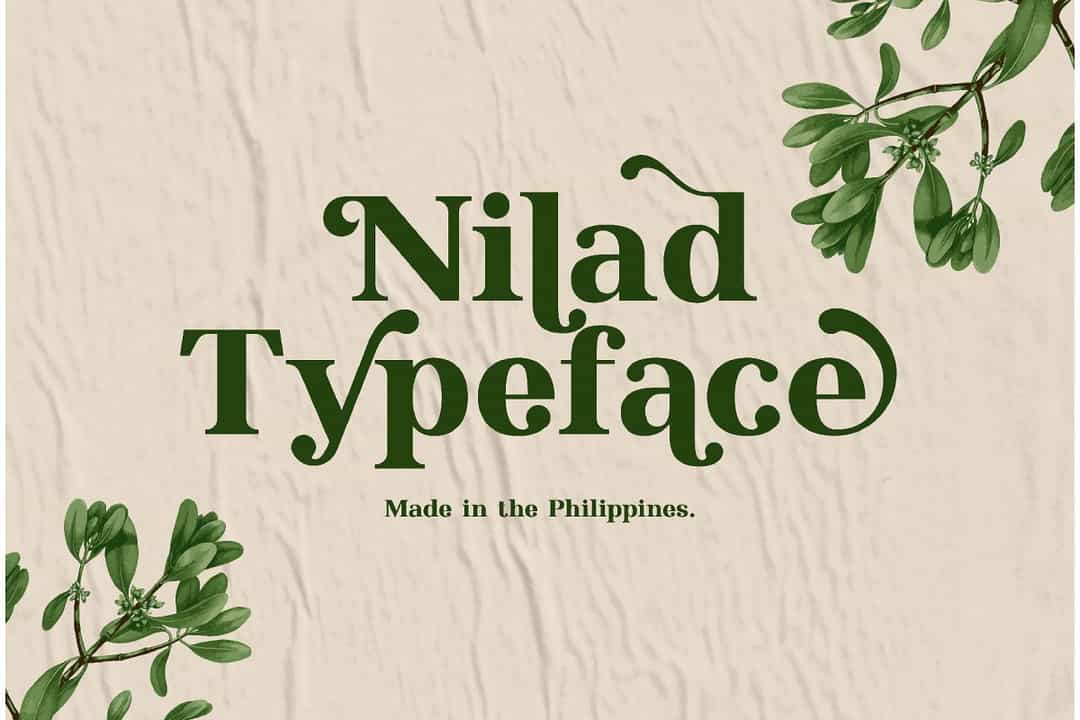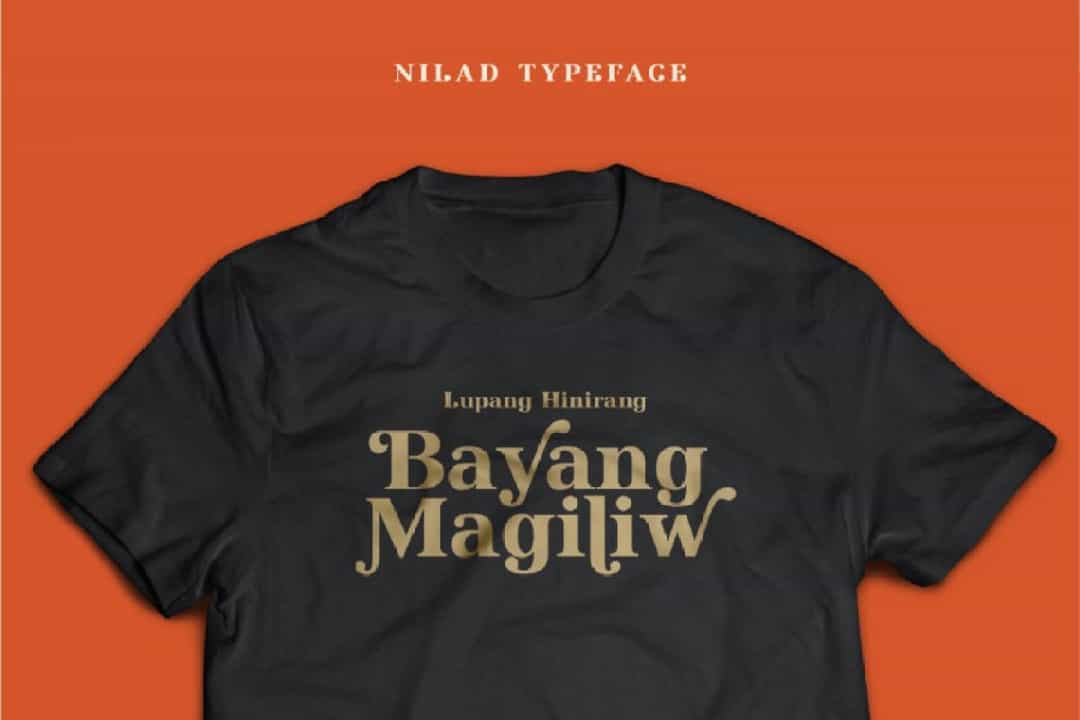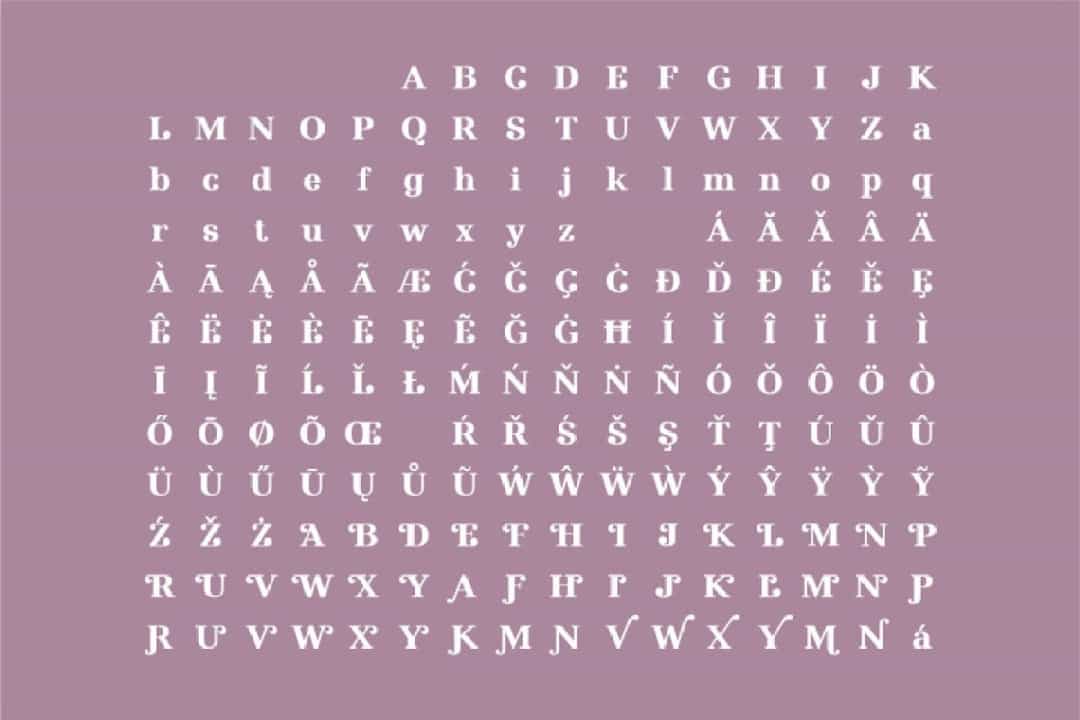
Nilad Font is an attractive display and ligament font that is designed with the influence of Yam sticks Mangrove known as Nilad. Manila City, which is the capital city in the Filipino, might have been named after one of these trees in relation to a certain event, explaining why Maynila is used in the language.